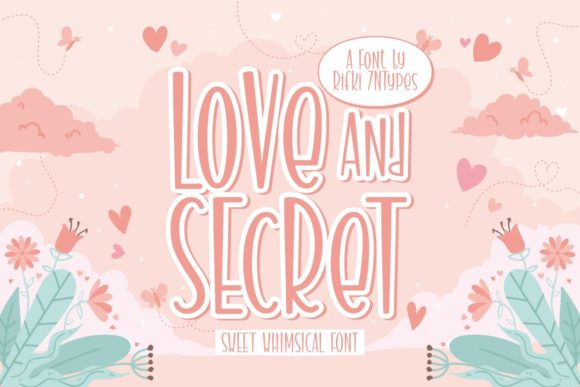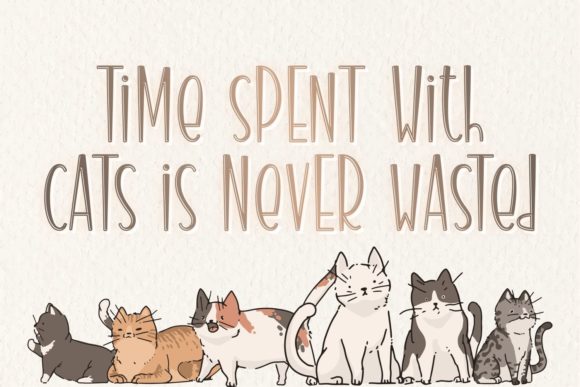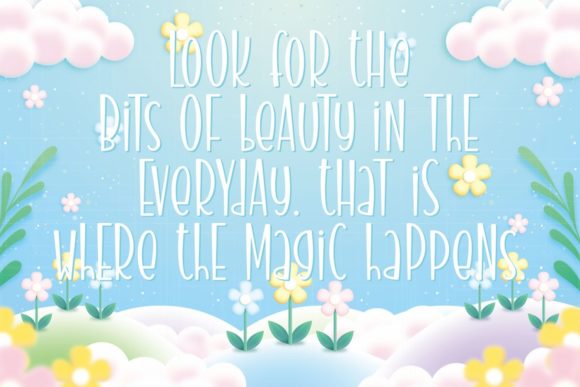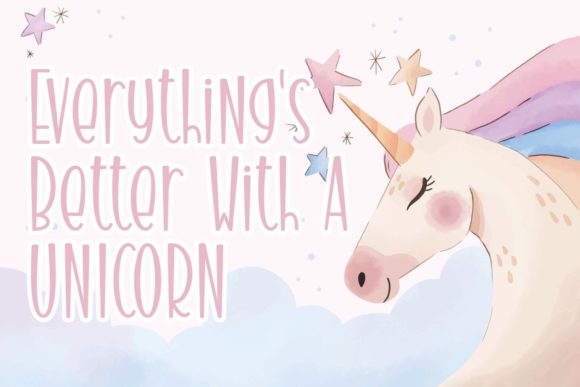
Love and Secret Font
About the Love and Secret Font
Make a bold statement with Love and Secret Font, a powerful and memorable font. Love And Secret is a cool, quirky and friendly display font. Whether you’re using it for crafts, digital design, presentations, or making greeting cards, this font has the potential to become your favorite go-to font, no matter the occasion!
Love and Secret excels as a display font for headlines, short text blocks in posters, and branding elements requiring a playful yet approachable feel. It’s ideal for projects targeting a younger demographic or those with a fun, quirky brand identity. Avoid using it for body copy or UI elements; its unique character forms are not optimized for readability in large blocks of text.
Pairing Love and Secret effectively depends on the desired balance. For a more whimsical aesthetic, consider pairing it with a rounded sans-serif like Bebas Neue. To add sophistication, a classic serif like Garamond or a clean geometric sans-serif like Futura would create a pleasing contrast.
The font’s core personality is undeniably friendly and quirky, making it perfect for projects that need a touch of lightheartedness and charm. Its unique forms add a sense of personality and warmth, but this should be carefully considered in relation to brand consistency and target audience.
Love and Secret Font Usage Examples
Love and Secret Font Example